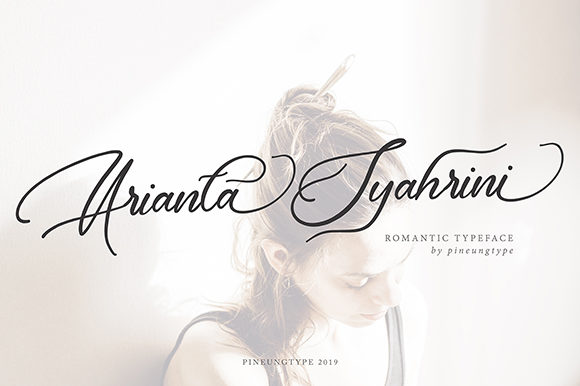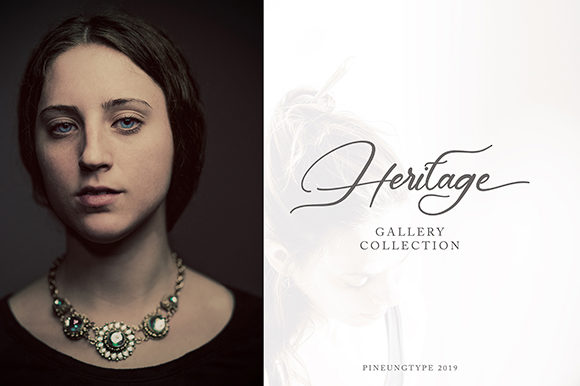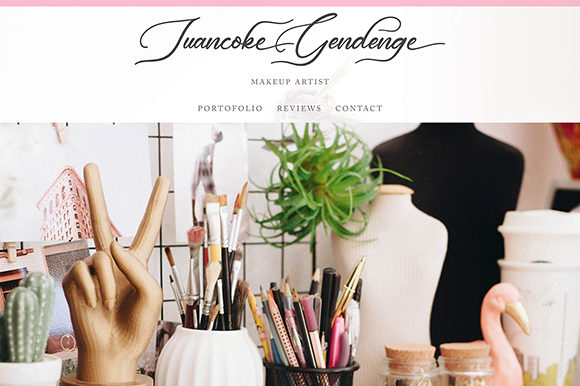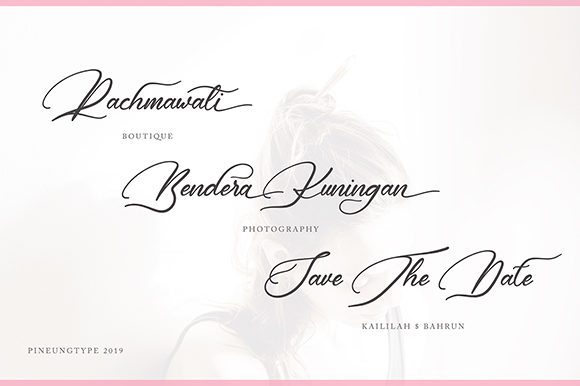
Arianta Syahrini Font
About Arianta Syahrini Font
Arianta Syahrini is a playful and fun handwritten font with a sophisticated feel. It will turn any design project into a true stand out!